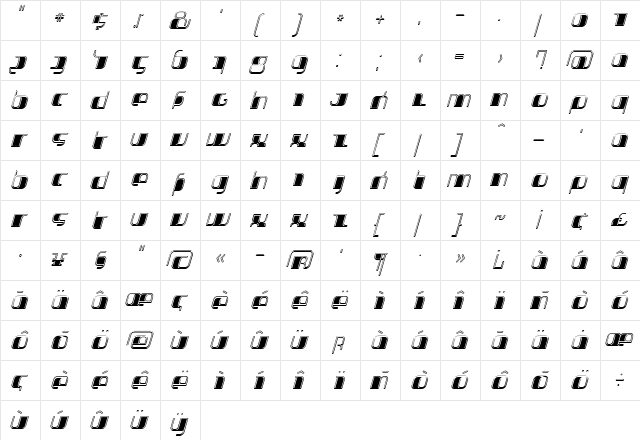
Jakone Italic
Design Context for Jakone Typeface
Jakone is a composed and adaptable typeface that performs quietly and consistently across a wide range of design contexts. The dynamic lean of this cut emphasises speed and emphasis in any layout.
Pro Tip: Use Jakone for emphasis, pull quotes, and subheadings where its slanted energy can add rhythm to the layout.